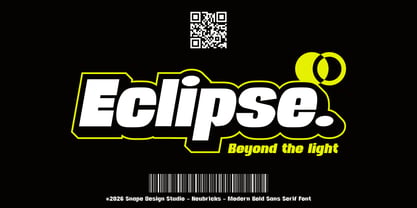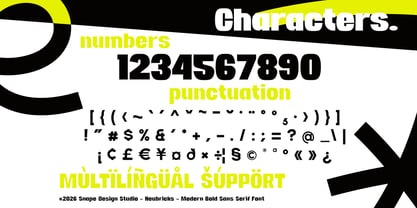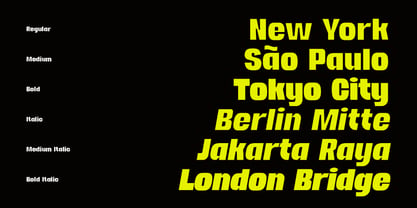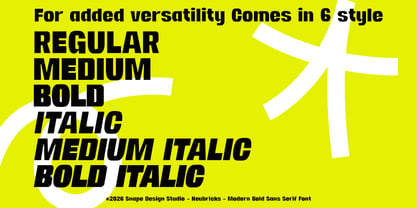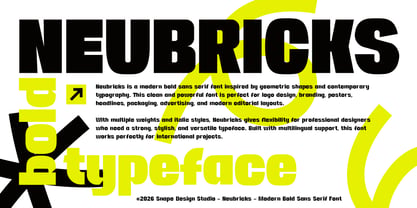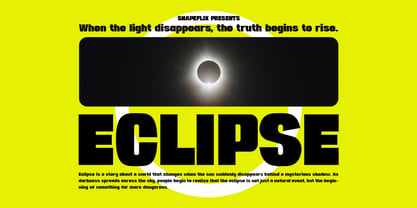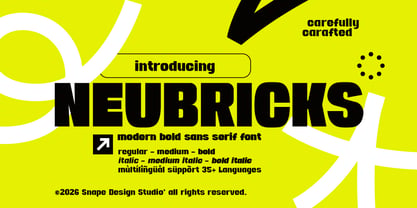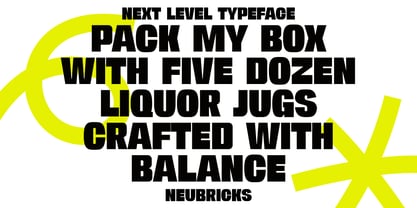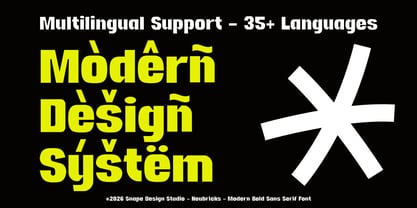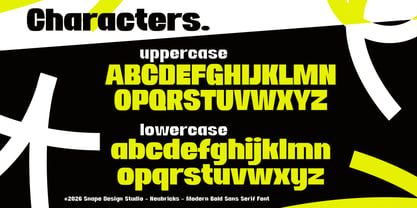
Neubricks
by snapedsgn
The Neubricks Font Family was designed by Ario Sabrang and published by snapedsgn. Neubricks contains 6 styles. More about this family
Neubricks is a modern bold sans serif font inspired by geometric shapes and contemporary typography. This clean and powerful font is perfect for logo design, branding, posters, headlines, packaging, advertising, and modern editorial layouts. With multiple weights and italic styles, Neubricks gives flexibility for professional designers who need a strong, stylish, and versatile typeface. Built with multilingual support, this font works perfectly for international projects. Features: Regular, Medium, Bold & Italic style Clean, bold & modern sans serif style Multilingual support (35+ languages) Uppercase & lowercase Numerals & punctuation Perfect for branding, logo, UI, poster, packaging, and editorial If you have any inquiries or need assistance, please feel free to contact us. We appreciate your support in enhancing your creative projects! Best Regards, Snape Design Studio.
Designers: Ario Sabrang
Foundry: snapedsgn
My name is Ario Sabrang Damar, I am the founder of Snape Design Studio, a graphic studio based in the small town, Madiun, Indonesia. I founded this studio in 2017, after deciding to pursue a career in graphic design. I do many things in the graphic design field, some of which create logos, mascots, illustrations, typography, branding, and fonts.Have a good day!